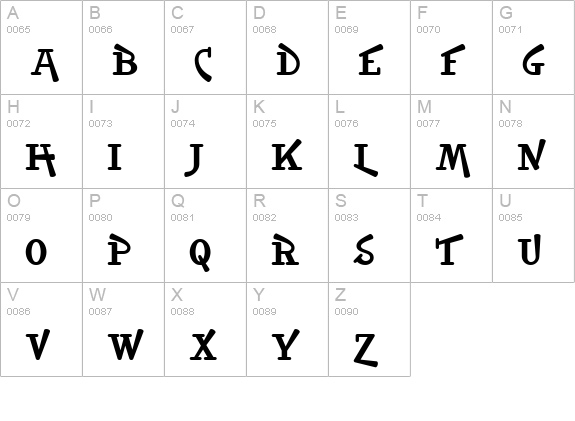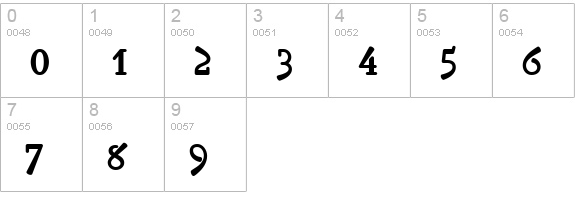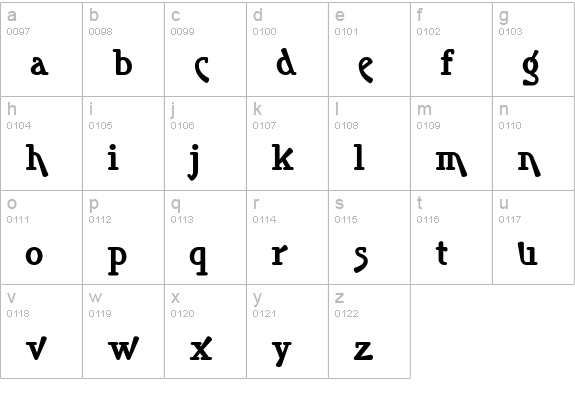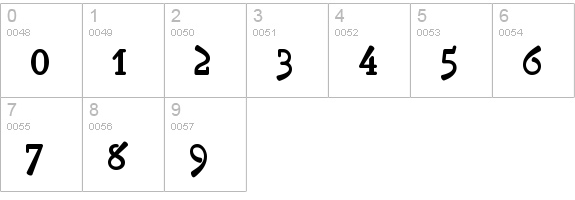
NankiPooNF Medium Font Details
NankiPooNF Medium is a balanced, medium-weight variant in the NankiPooNF typeface family \xE2\x80\x94 well suited to sub-headlines, navigation, and balanced editorial work.
NankiPooNF Medium font is a versatile and elegant typeface that exudes a sense of modern sophistication. With its clean lines and balanced proportions, this font is perfect for a wide range of design projects, from branding to editorial design. The medium weight of NankiPooNF Medium strikes the perfect balance between readability and style, making it a great choice for both headers and body text. Best of all, NankiPooNF Medium font is free to download at FontsMarket.com, making it accessible to designers and creatives of all levels. Whether you're working on a personal project or a client commission, this font is sure to elevate your designs and give them a professional edge. Download NankiPooNF Medium today and see for yourself how it can enhance your creative work.